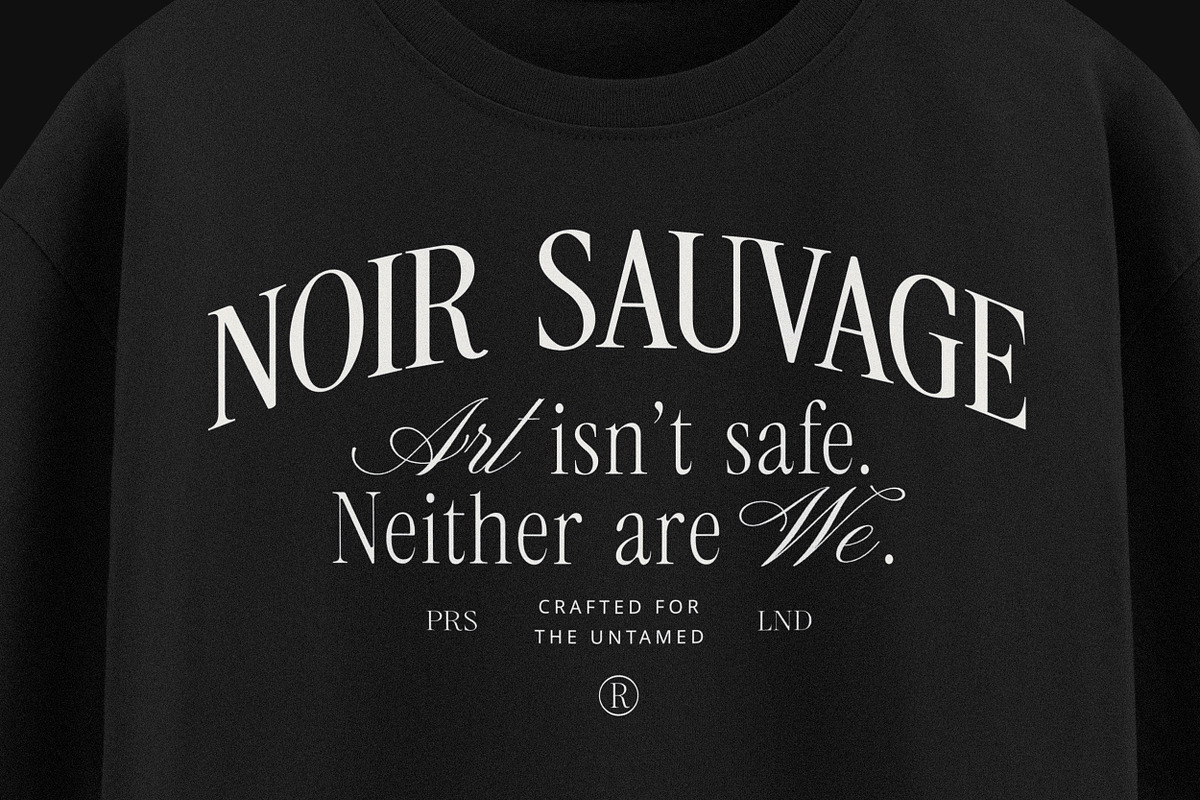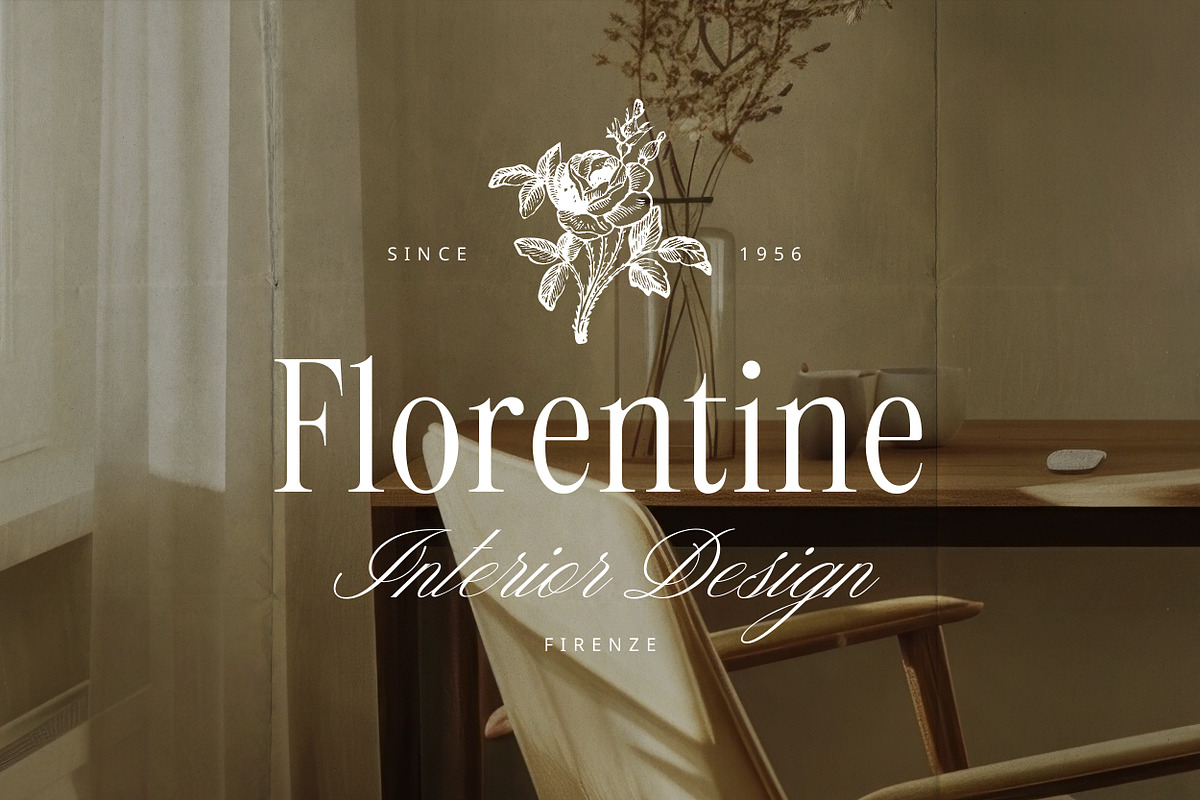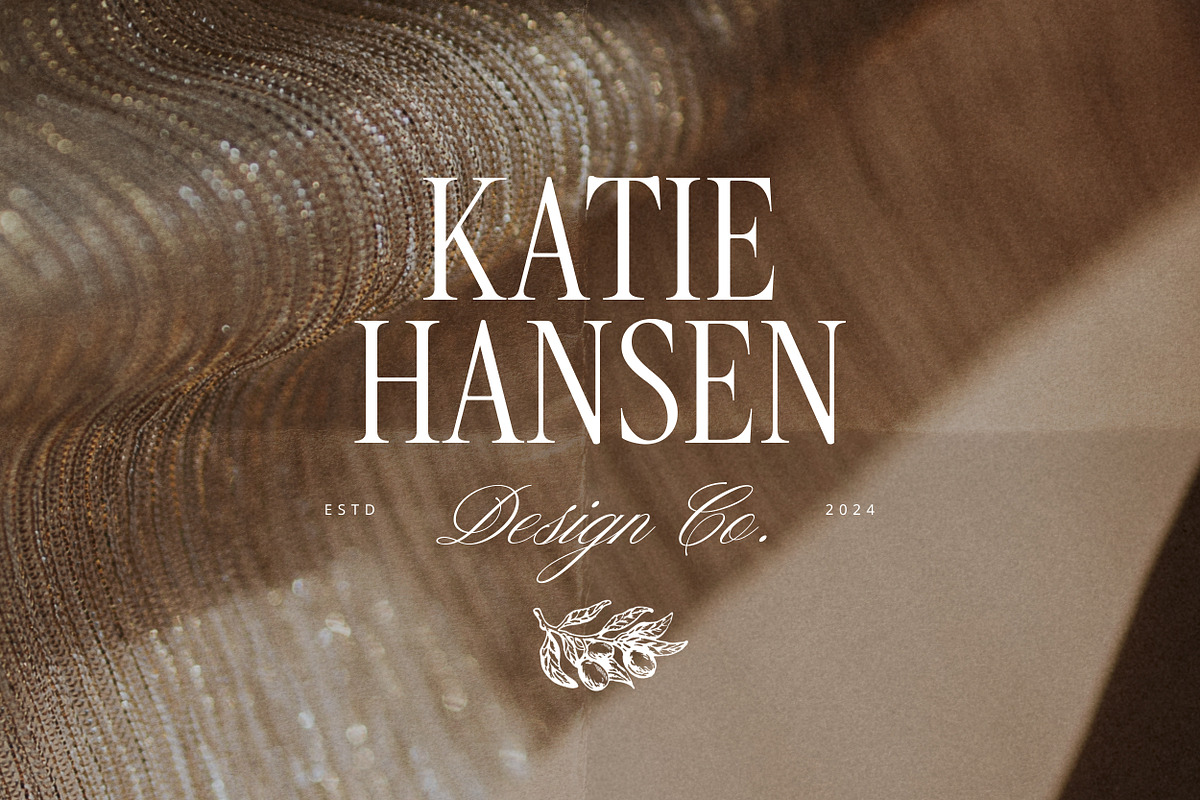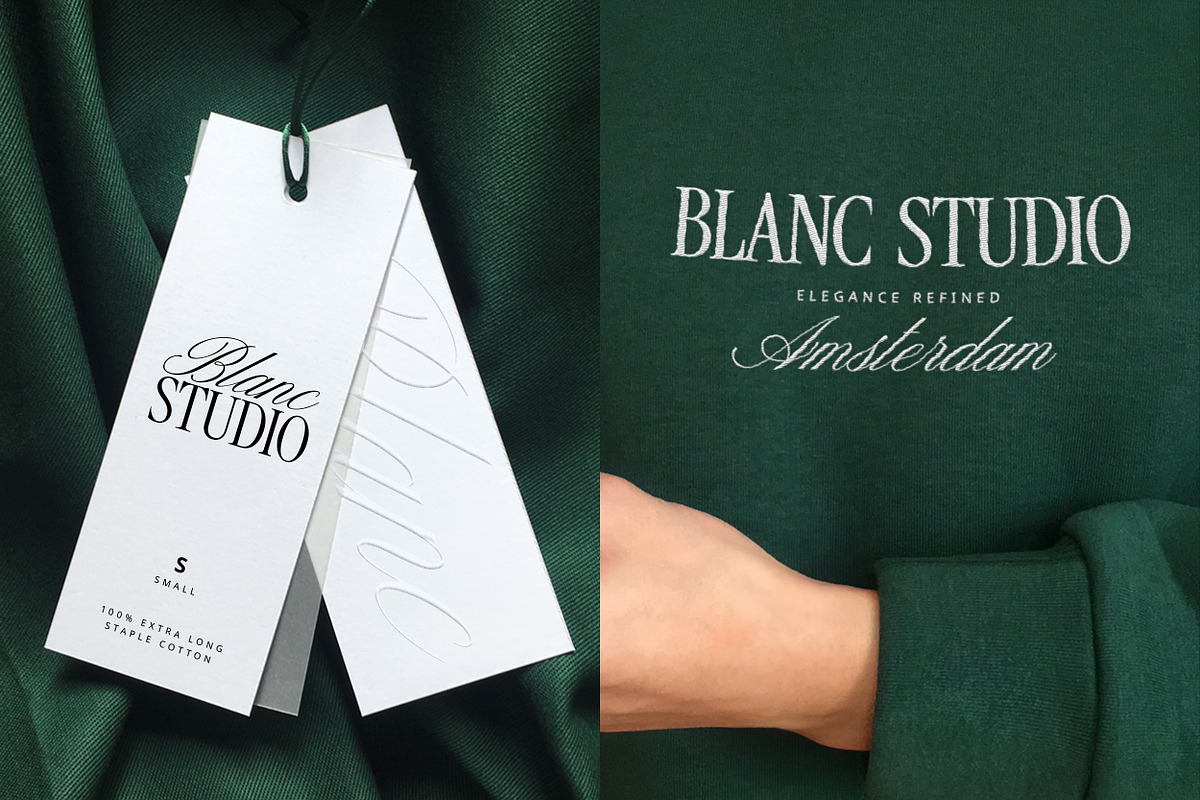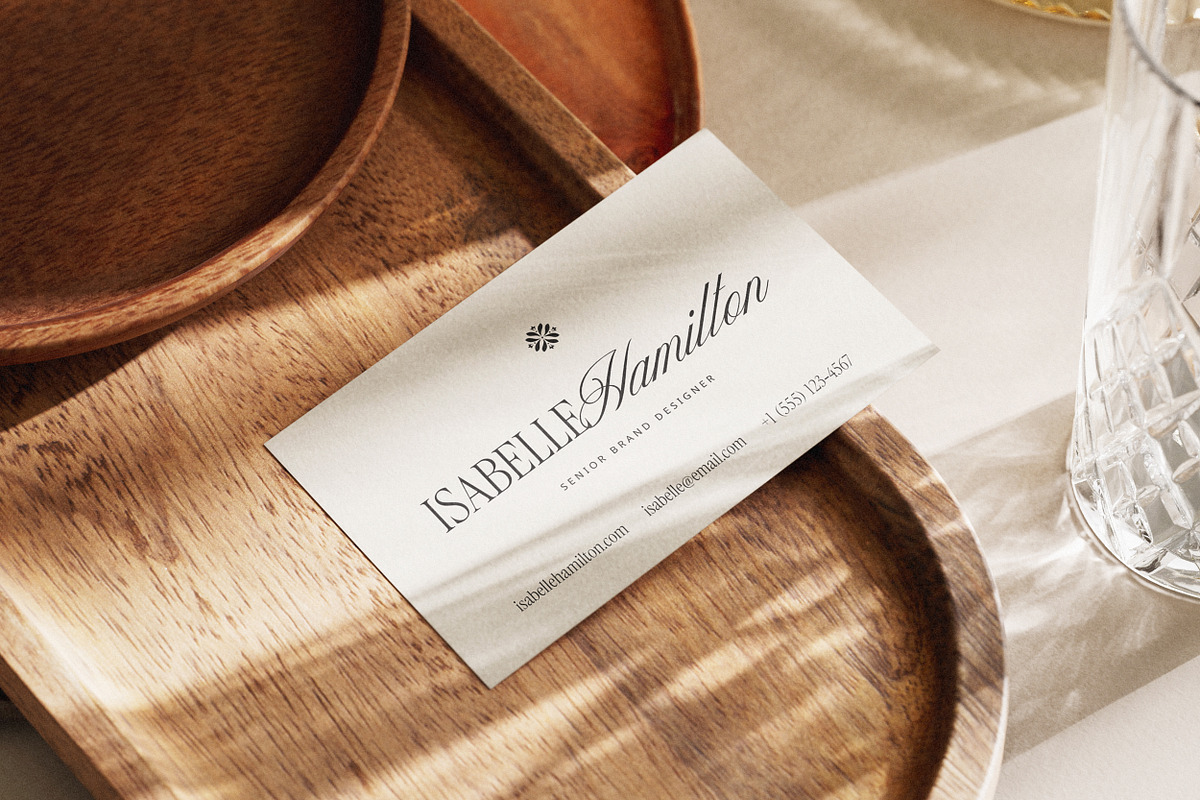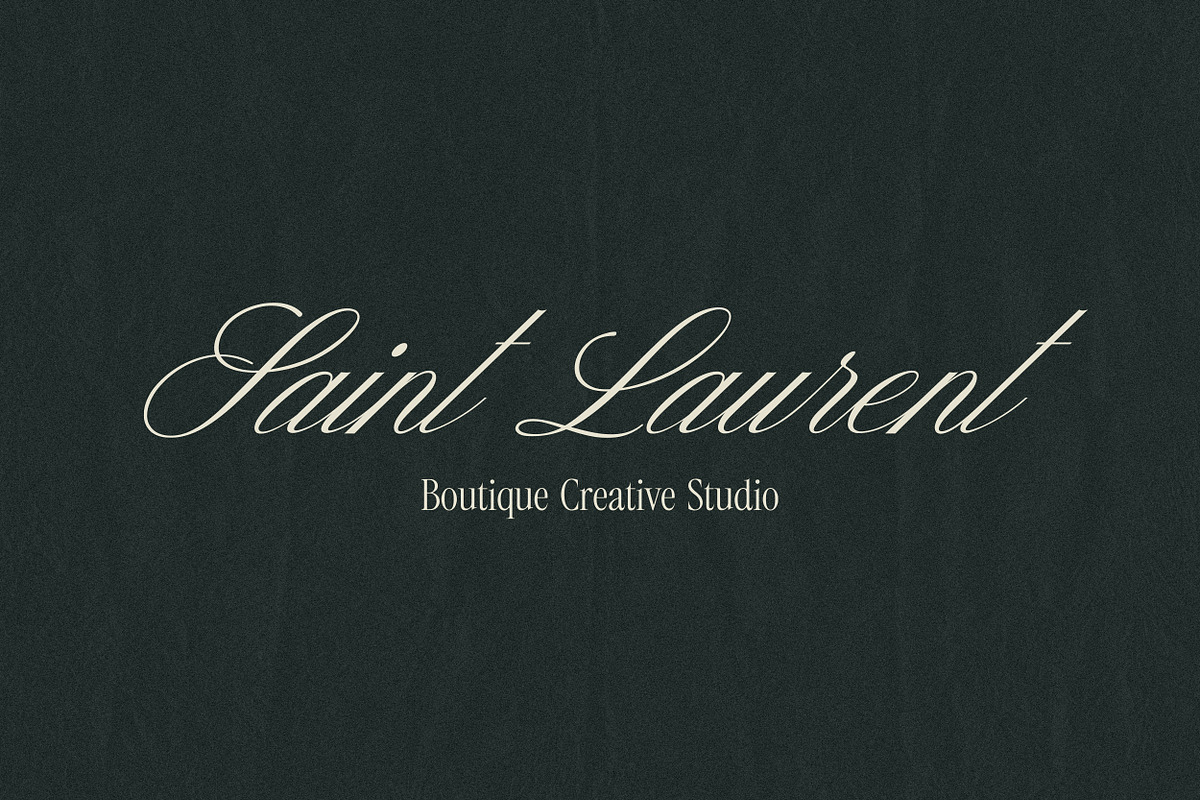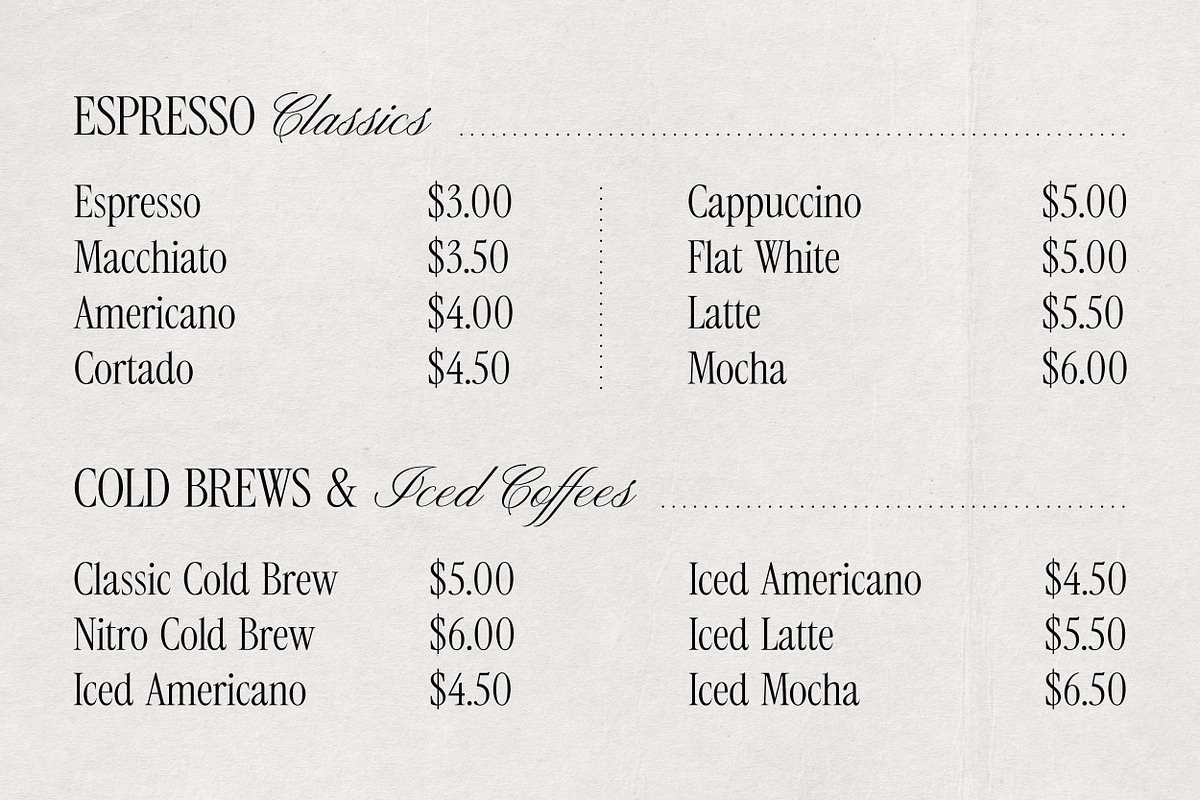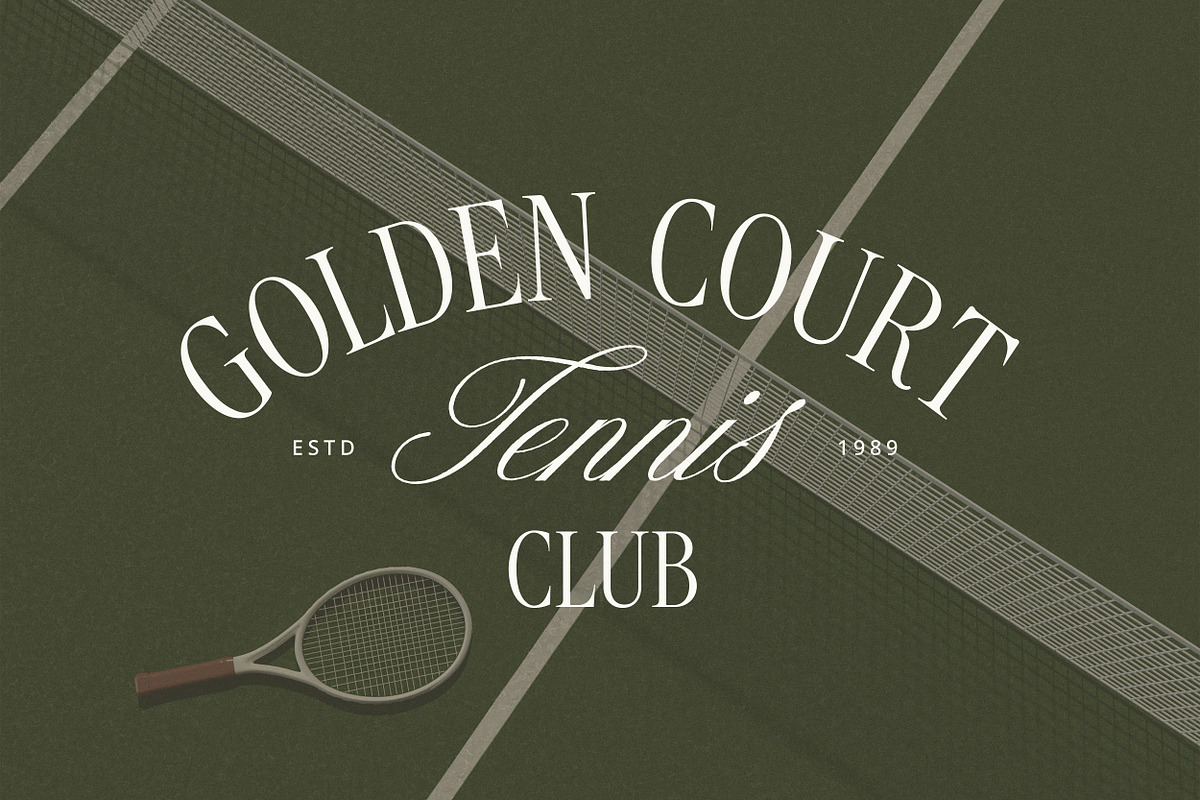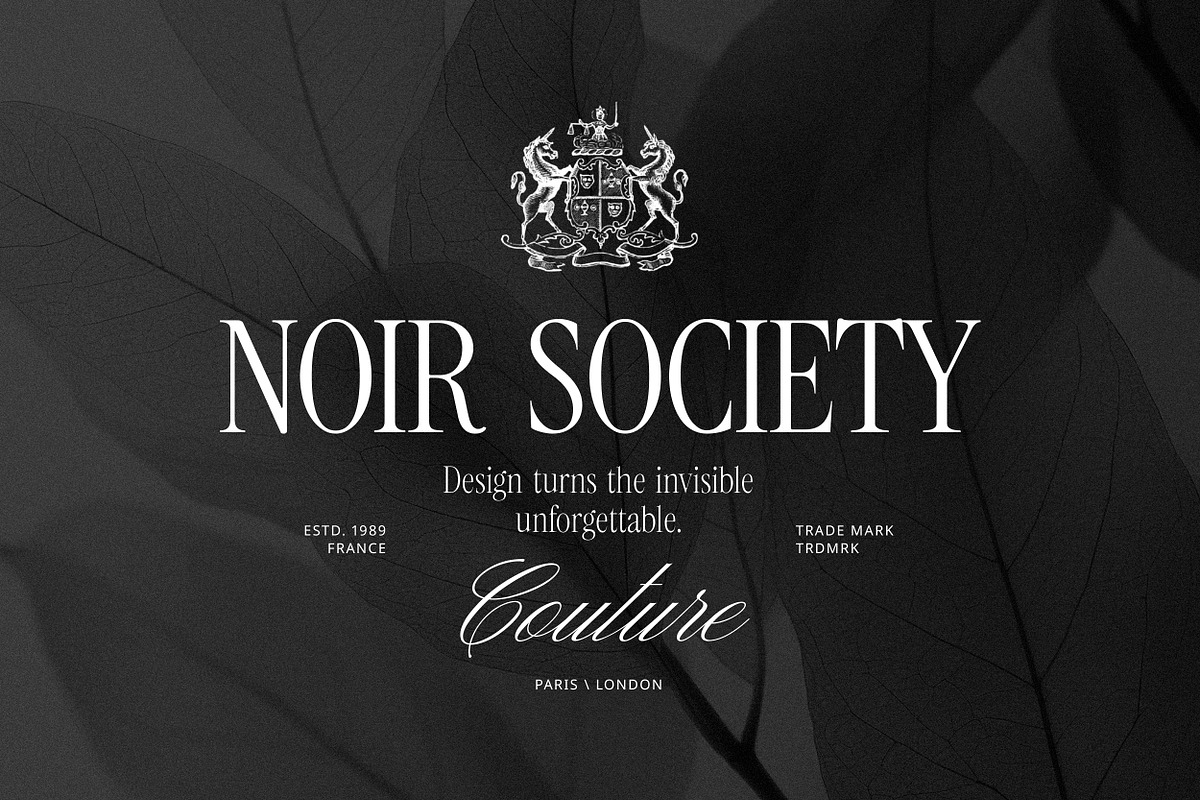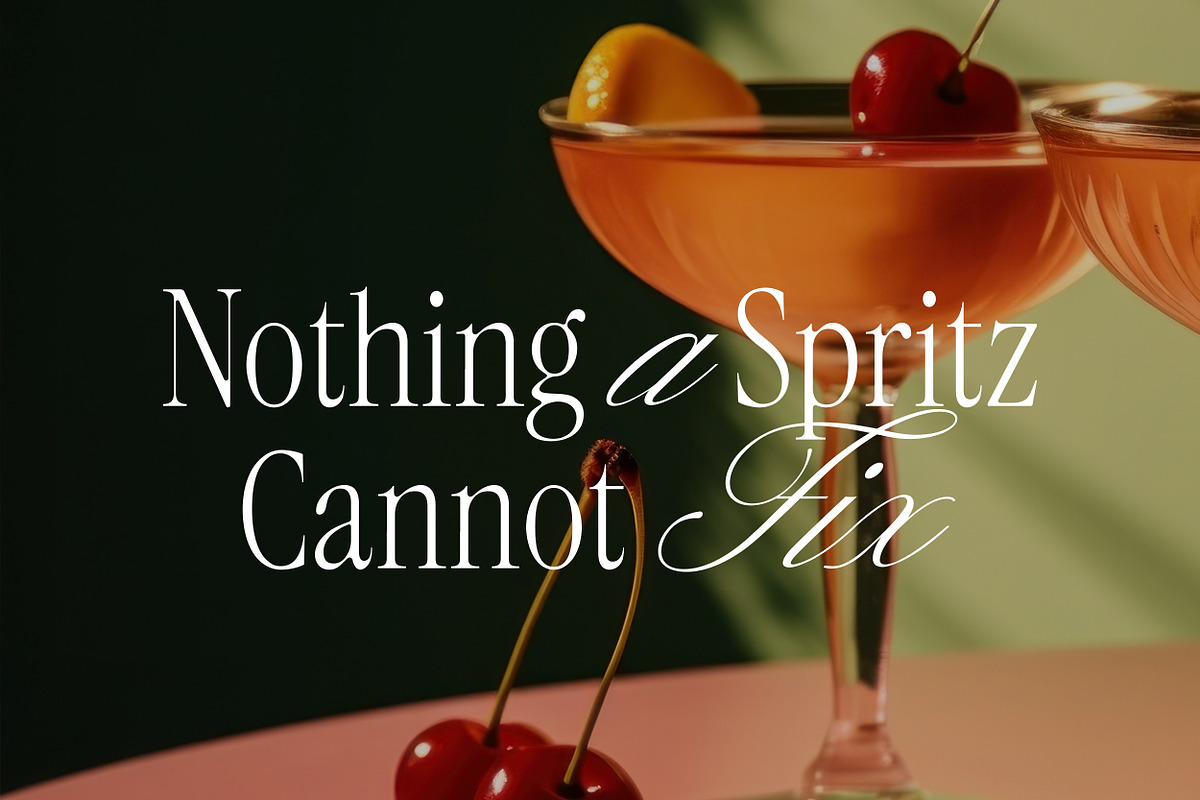
Darline Font Duo
Meet Darline Font Duo, a harmonious blend of serif and script styles that creates a balanced, refined look.
Darline Font Duo comes with multiple styles in both serif and script. The serif includes three weights—Light, Regular, and Bold. The script offers four unique versions: Regular, Regular Slanted, Aged, and Aged Slanted.
Why You’ll Love Darline Font Duo:
Perfect Font Pairing: Enjoy a beautiful balance of serif and script, creating an effortlessly chic look.
Full Punctuation & Symbols: Everything you need is here – punctuation, numerals, and special characters.
Broad Language Support: English, Italian, French, Spanish, German, Portuguese, Dutch, Danish, Norwegian, and Swedish.
Darline Serif
** Darline Script**